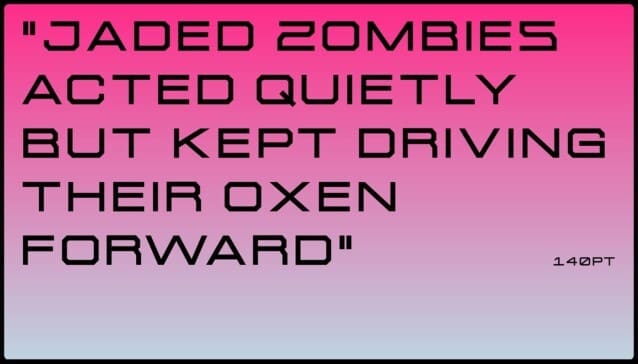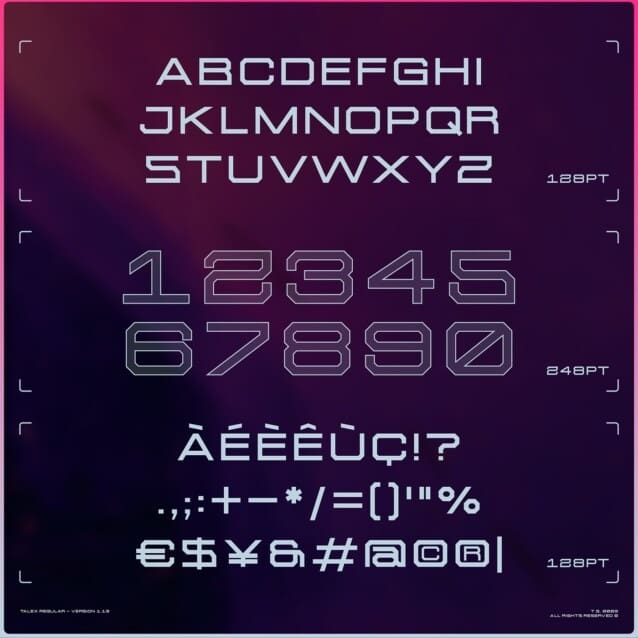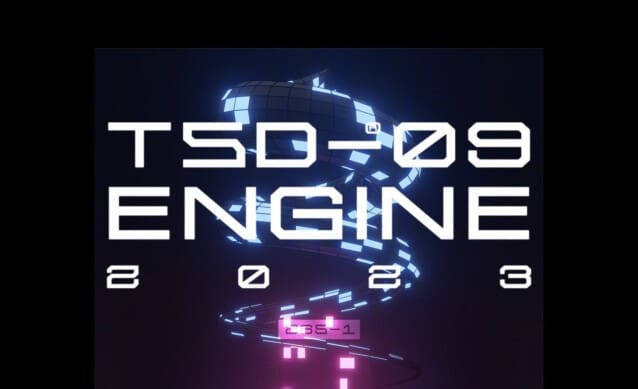
Talex Futuristic Font
Talex Futuristic Font, is a squareish sans-serif display font, coming in very sophisticated all-caps. Ready to use for your design like labeling, clothing, movie sceen, poster, movie title, gigs, album covers, logos, and much more.